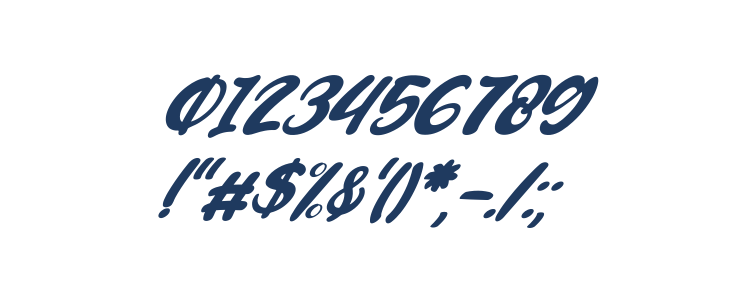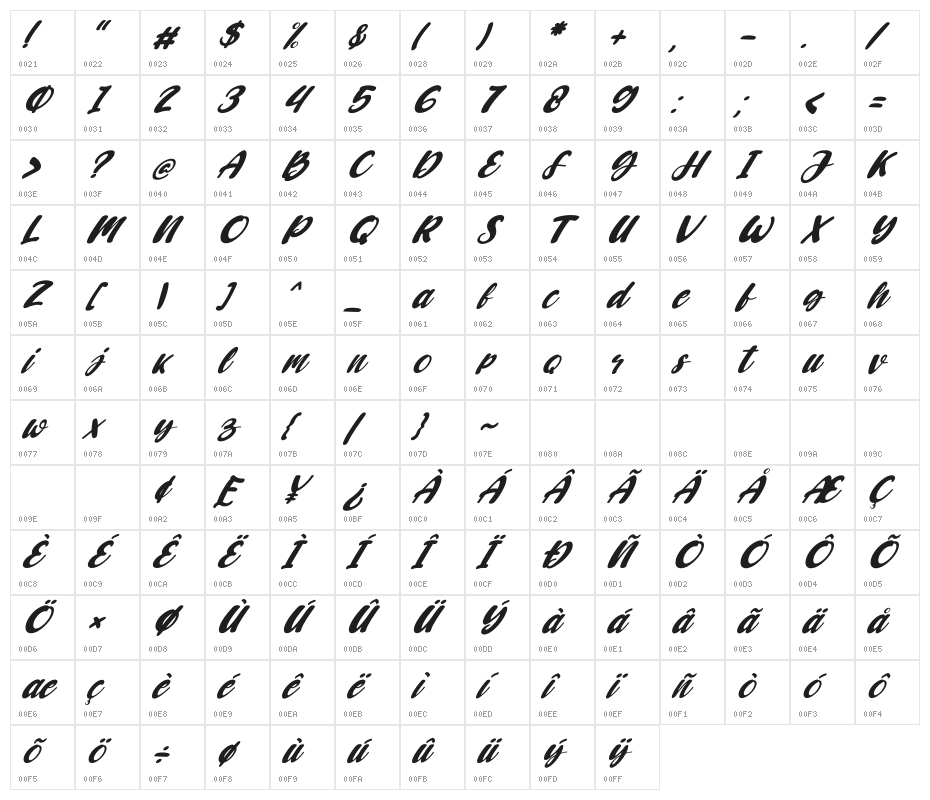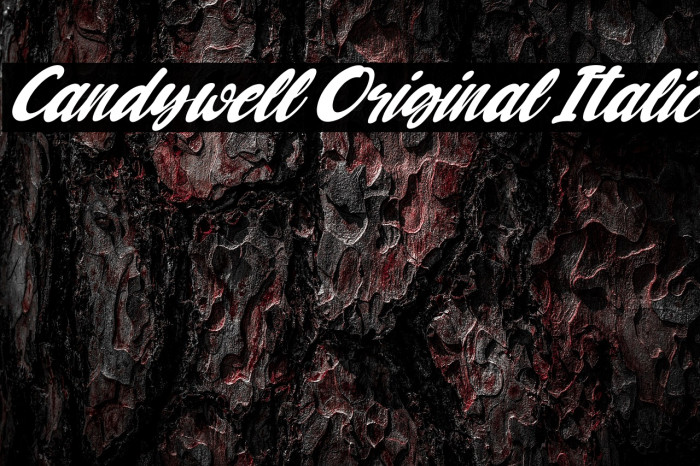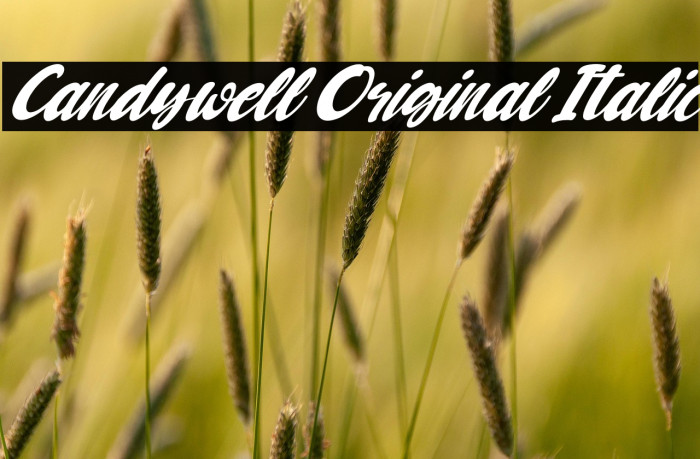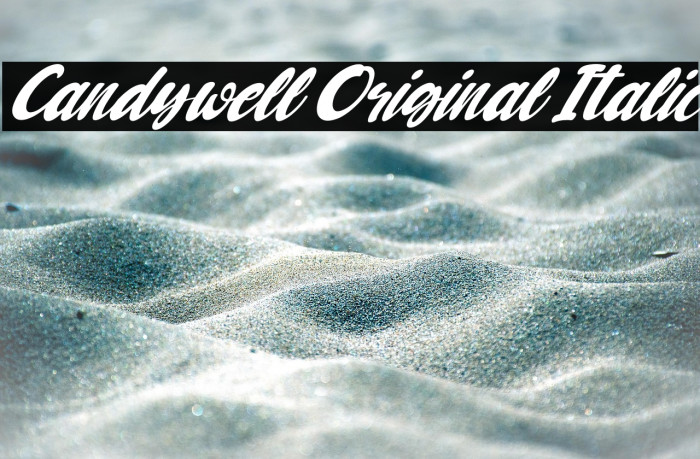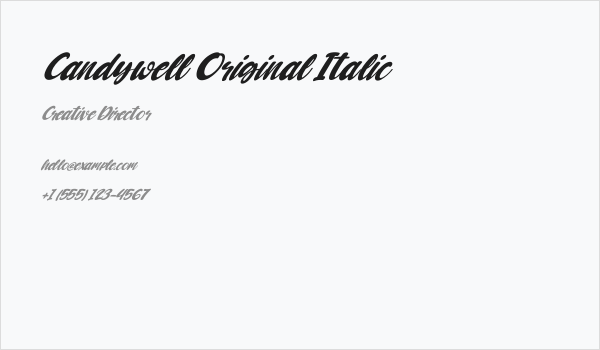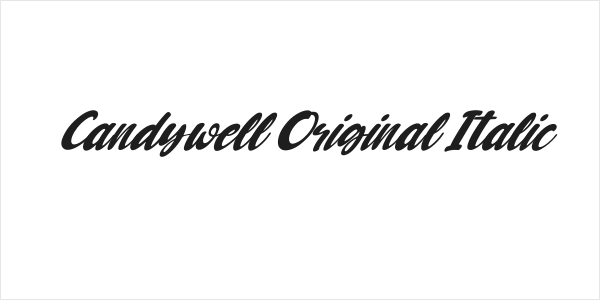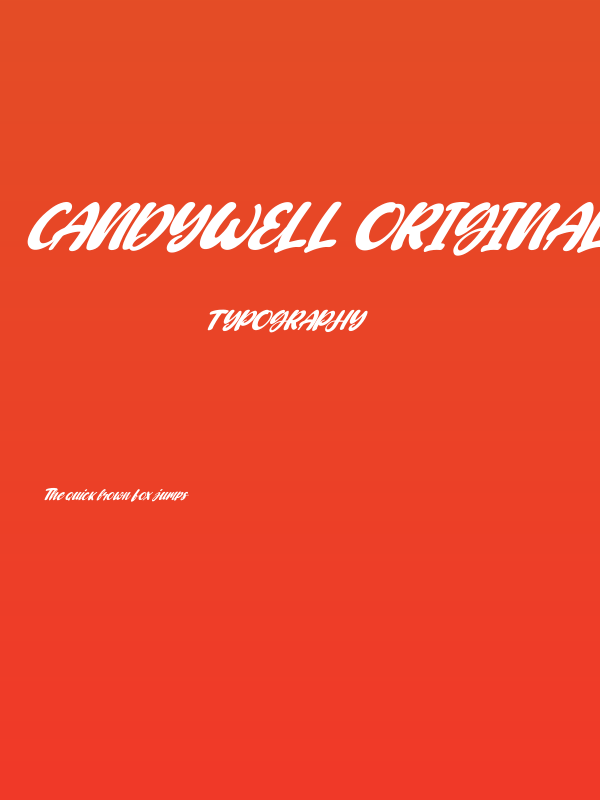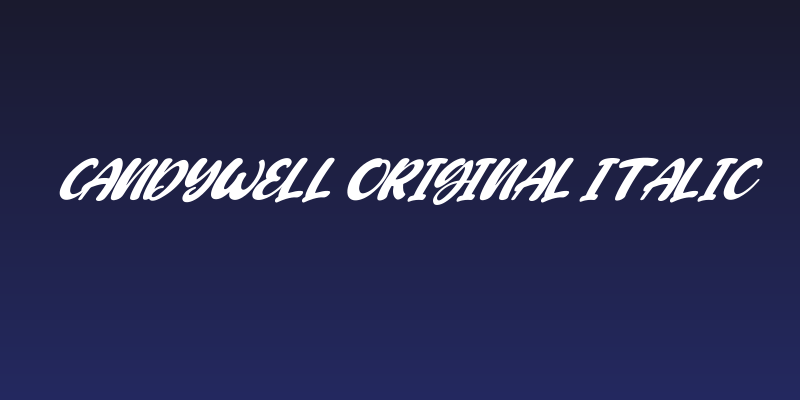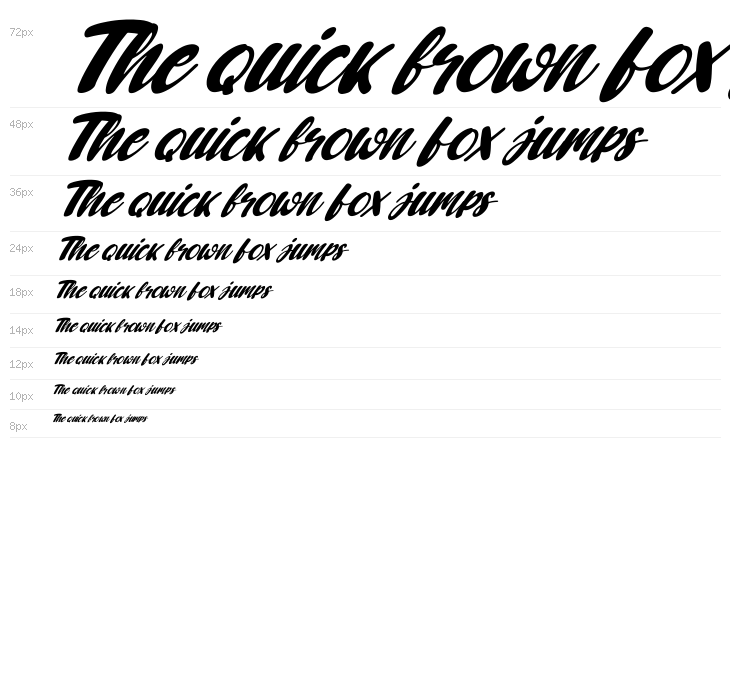
Candywell Original Italic Font
Candywell Original Italic Description
This font exudes a bold and dynamic presence with its italicized, cursive style. The characters are fluid and connected, creating a sense of movement and energy. The strokes are thick and consistent, providing a strong visual impact. Each letter flows seamlessly into the next, enhancing the script-like appearance. The uppercase and lowercase letters maintain a cohesive look, while the numerals and special characters integrate smoothly into the overall design. This font is ideal for projects that require a touch of elegance and flair, such as invitations, branding, or artistic designs.